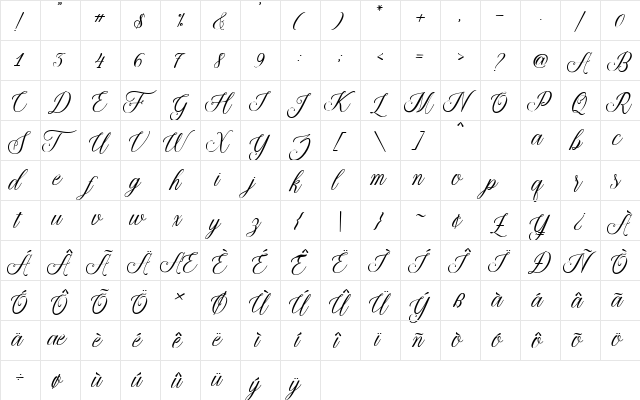
Thuressia Script Regular
| Foundry | Picatype |
| Designer | Picatype Studio |
Design Context for Thuressia Script Typeface
Thuressia Script brings a calligraphic fluidity to the page — its connecting strokes and expressive curves give it an unmistakably human quality.
Font Pairing: Combine Thuressia Script with a simple geometric sans for maximum contrast — the tension between flowing curves and clean structure is a classic typographic pairing.